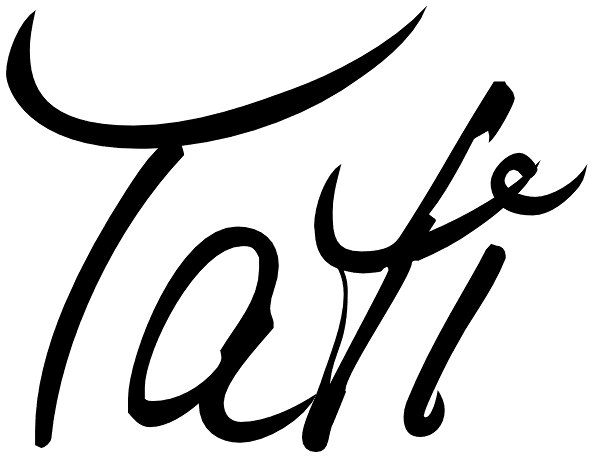
Tati
I only had this bouncy curve and a photograph of a daily menu (Truite Meunière) I took outside an obscure Paris restaurant when starting the design of this font. But while working on it I suddenly started thinking about Jacques Tati the famous but...